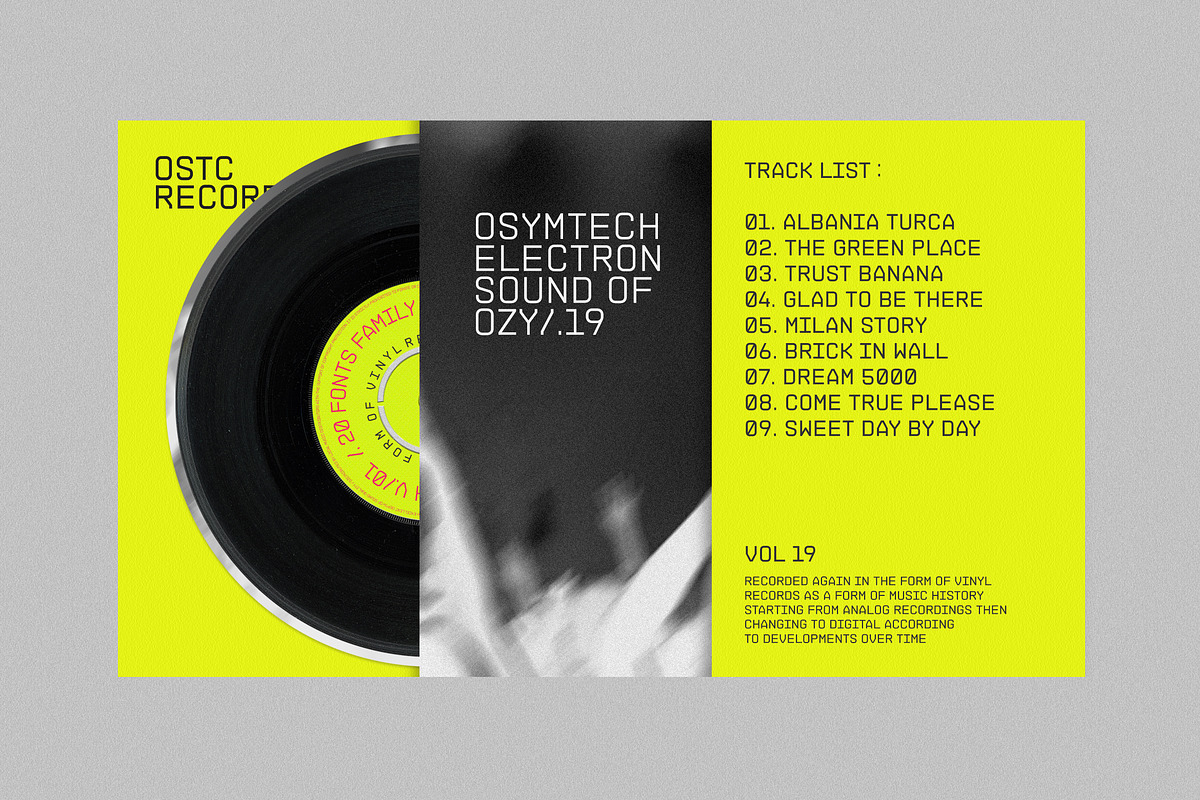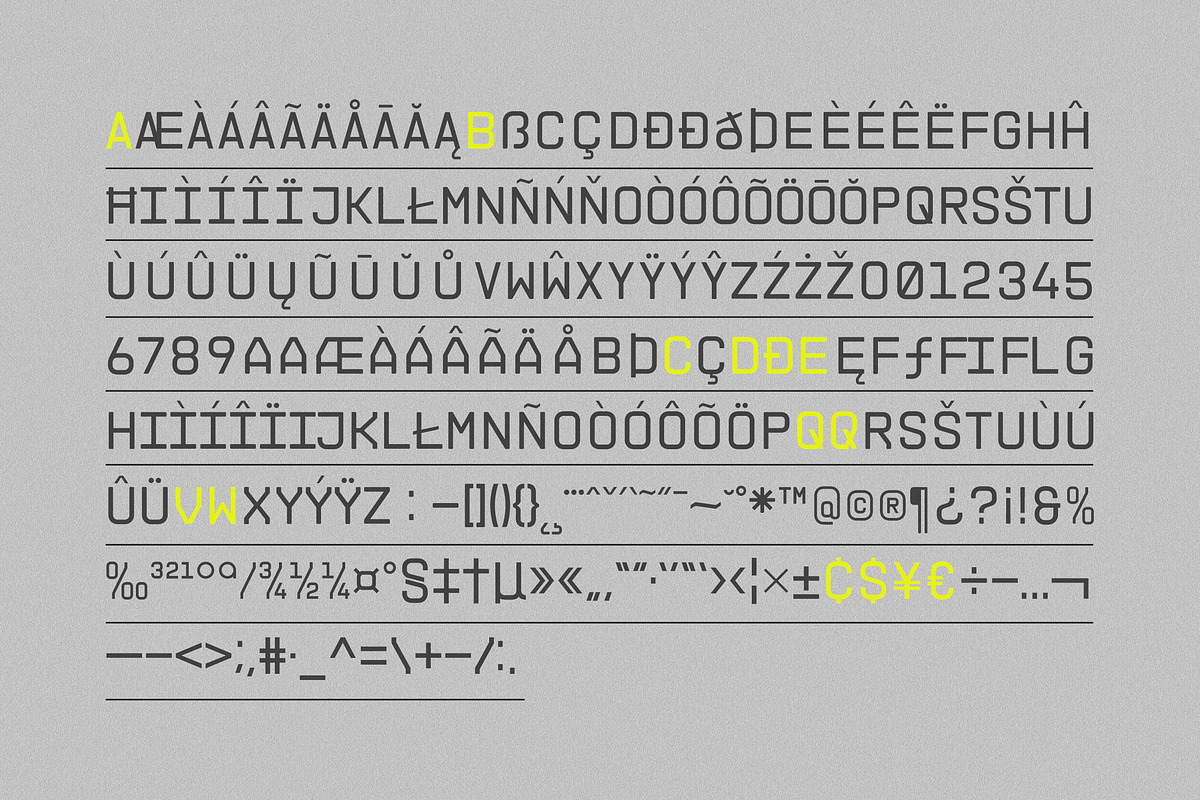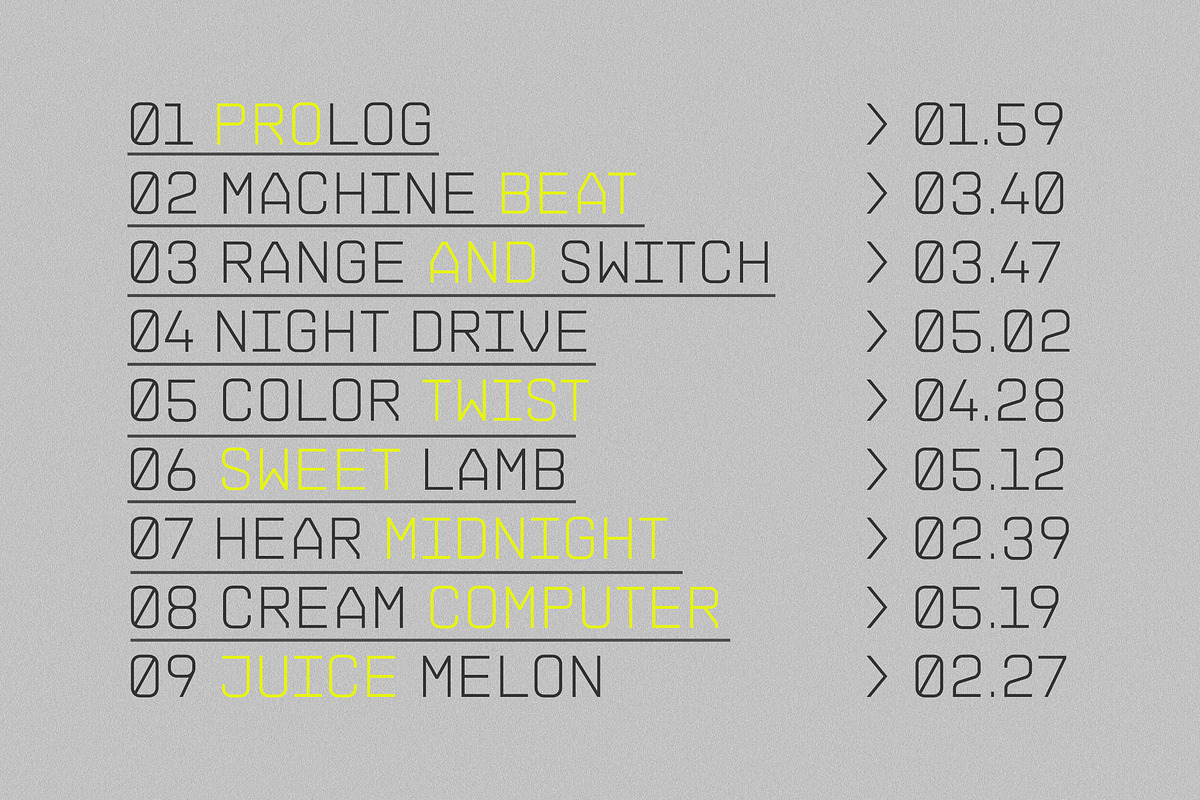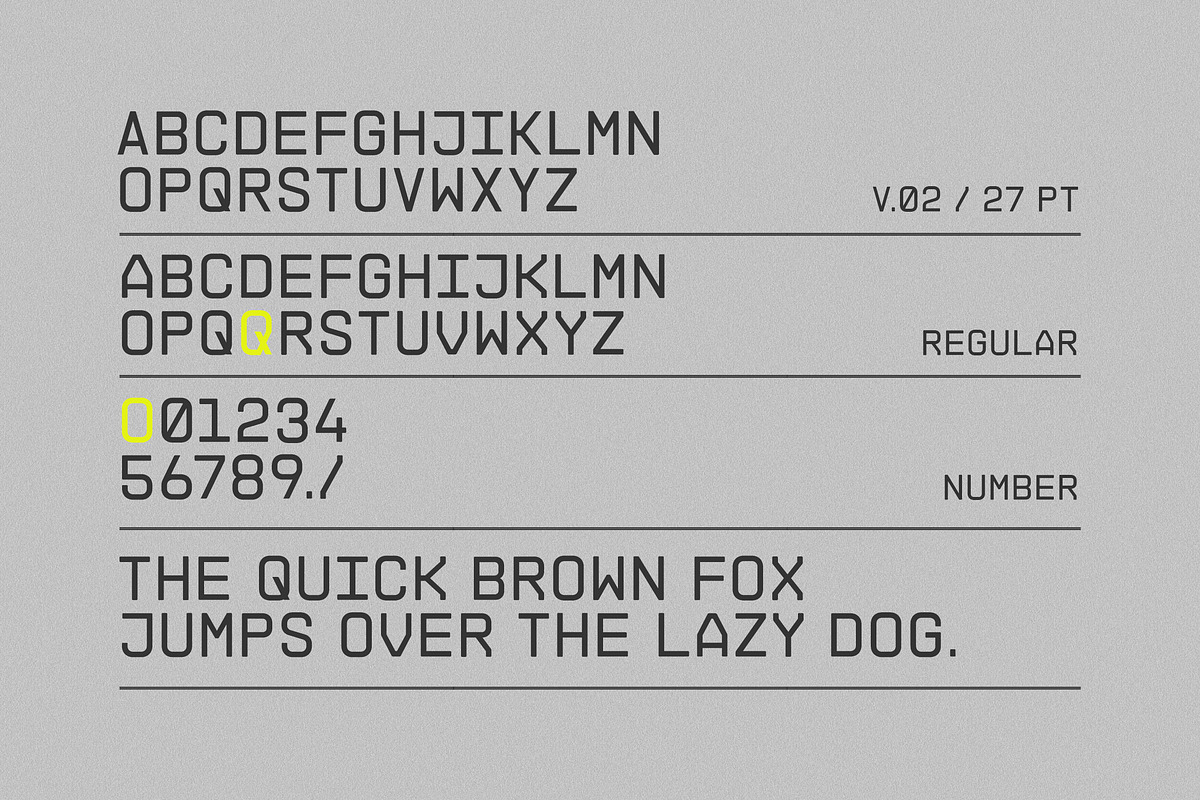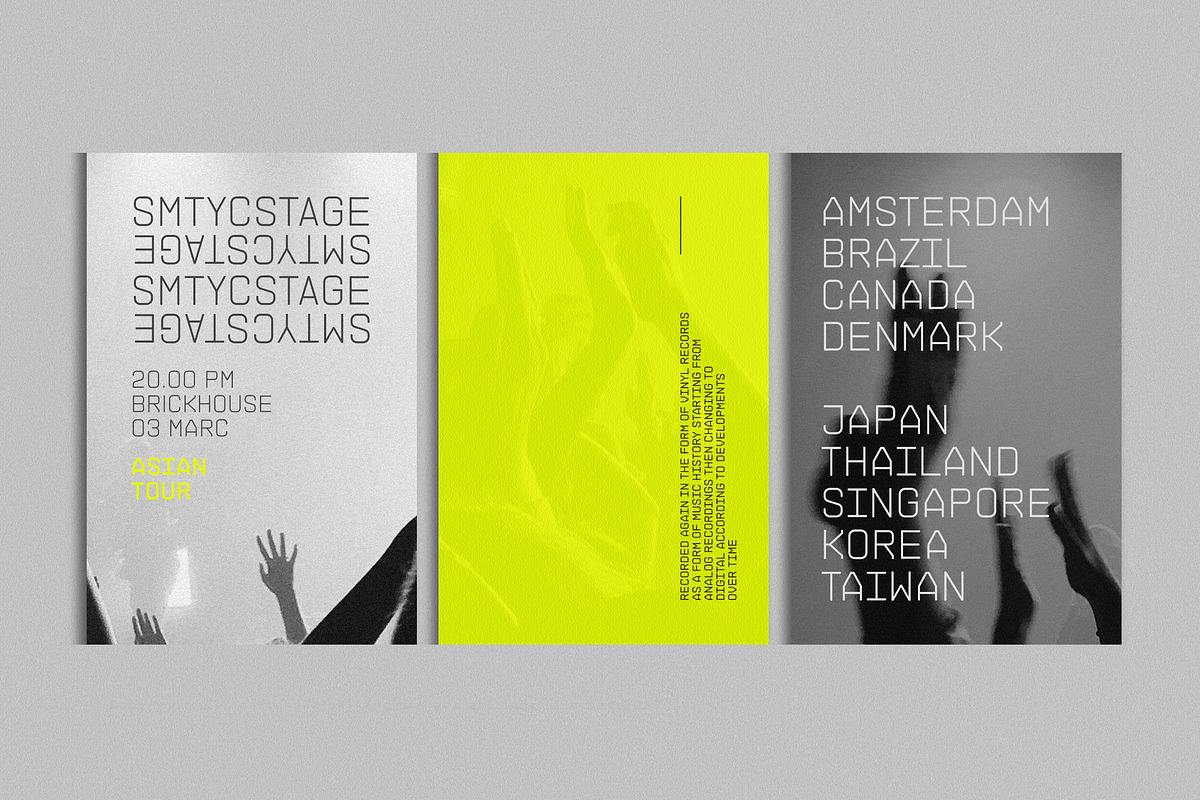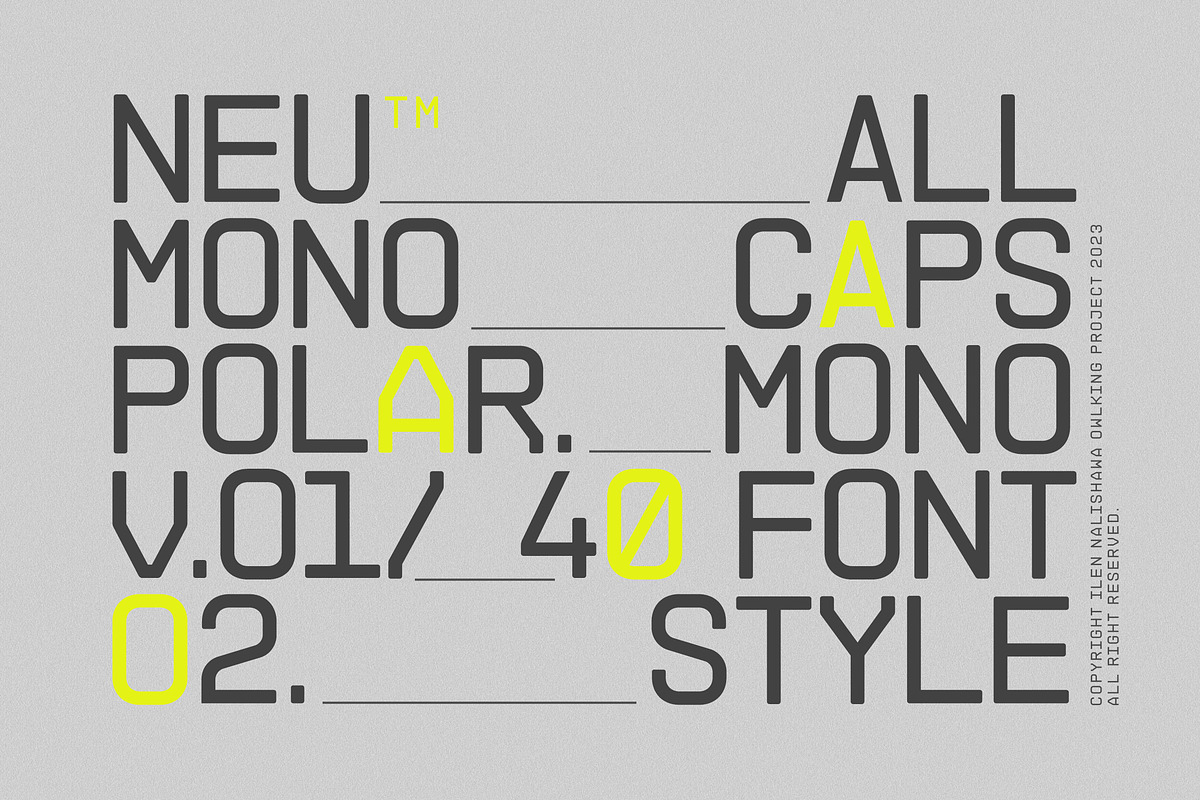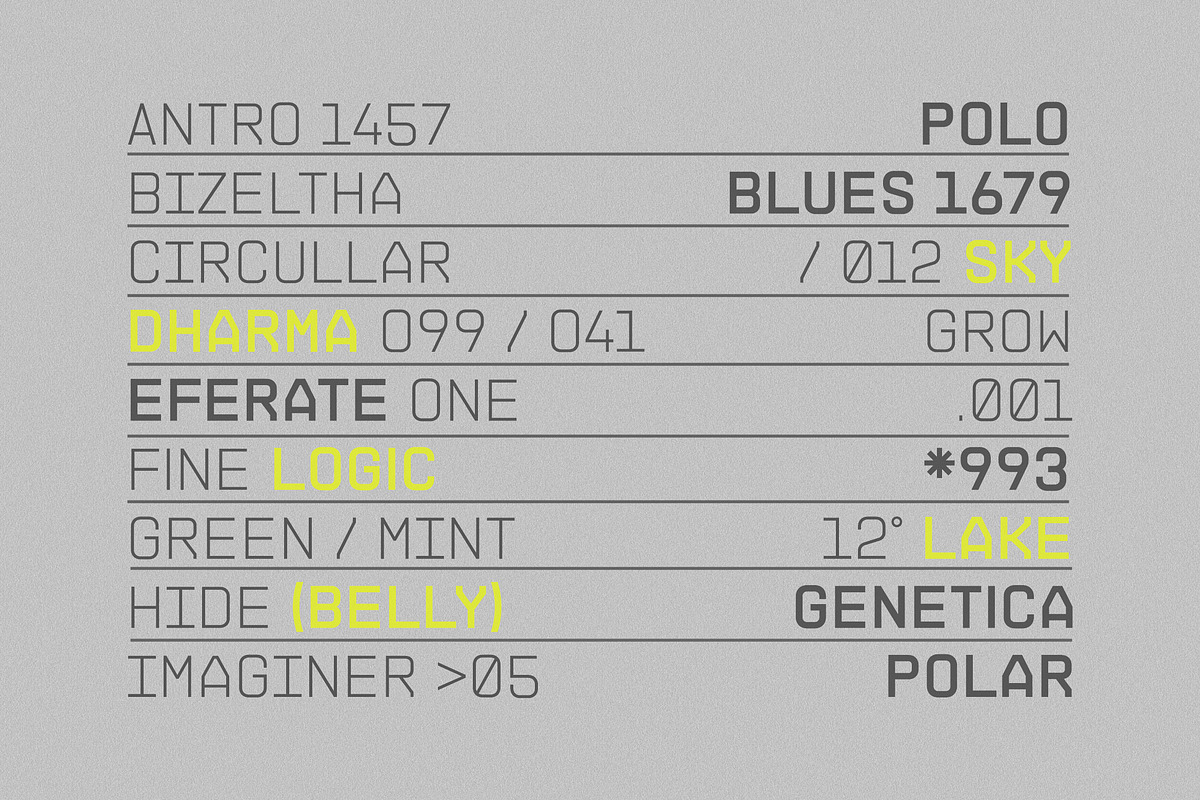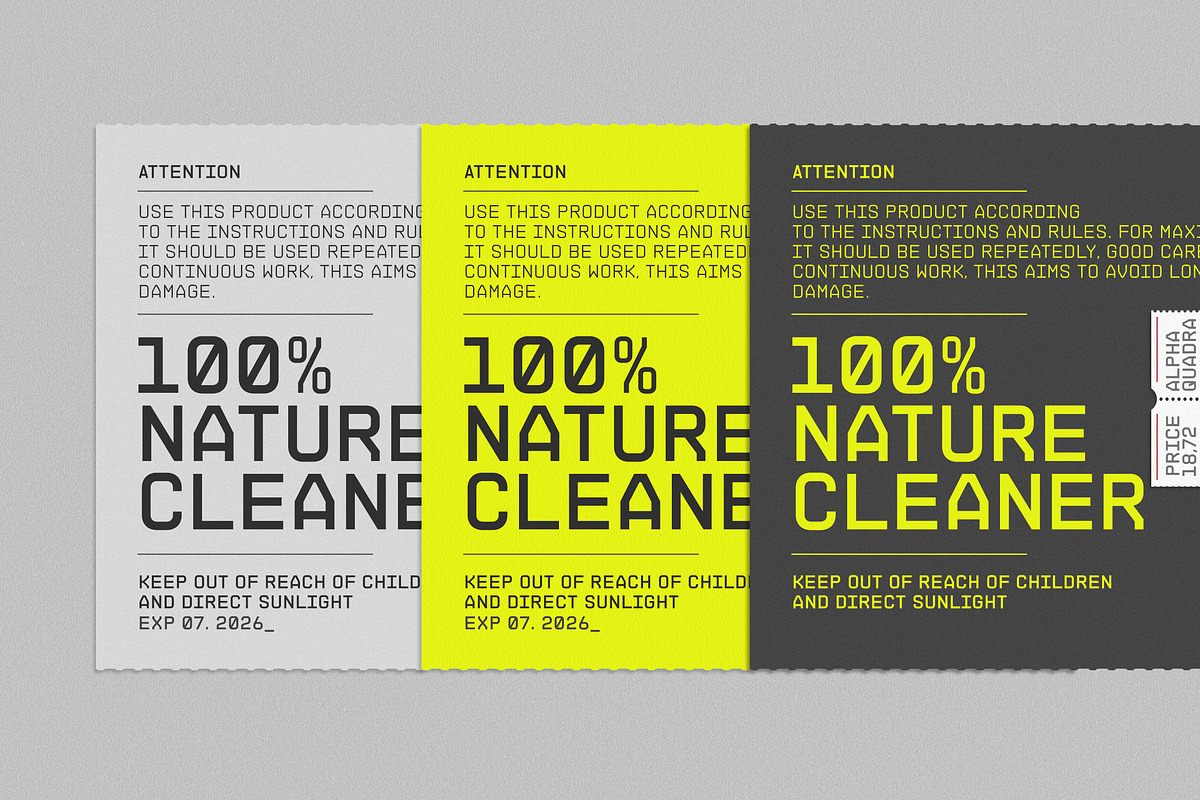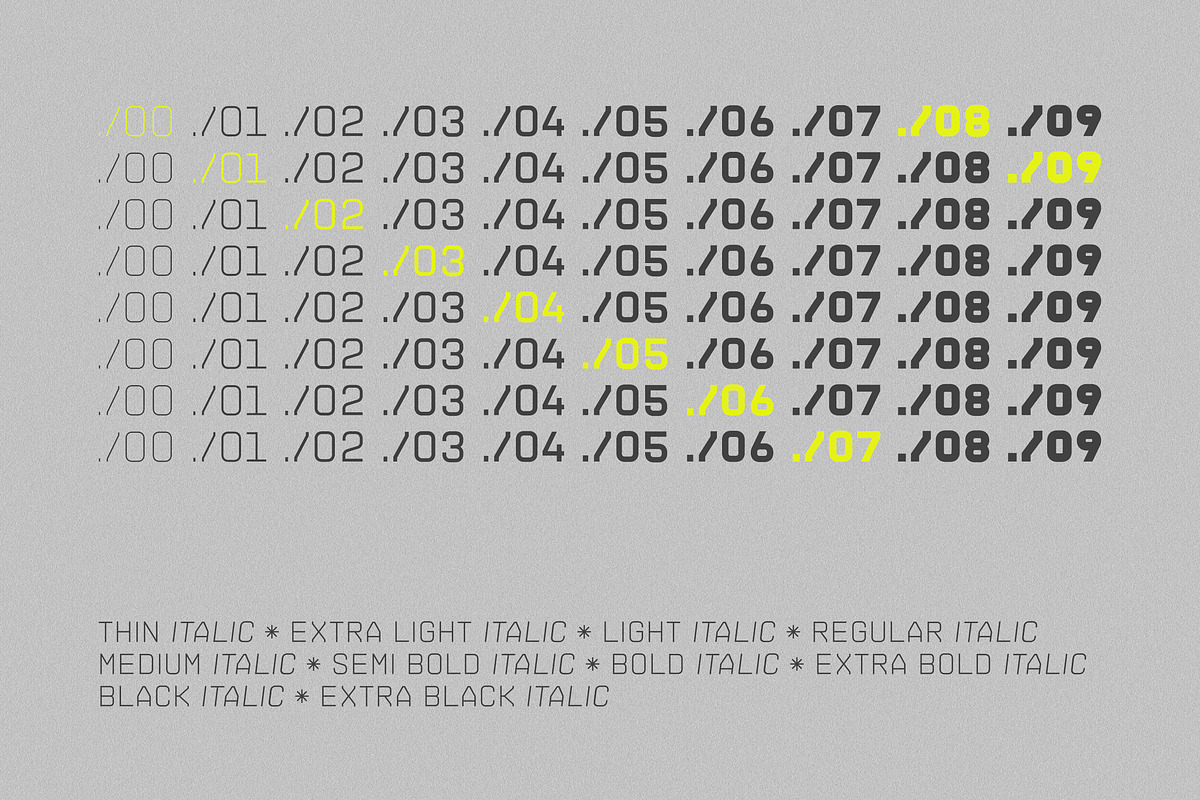
NEUMONOPOLAR
NEUMONOPOLAR V.01
NEUMONOPOLAR V.01 is designed with a mono uppercase font style, sharp edges, and bold. NEUMONOPOLARV.01 carries 20 styles to provide freedom of exploration in its use.
This font looks clean and elegant with a light to medium weight, emphasizing its use of bold style. welcome to the futuristic stylish front of the NEUMONOPOLAR V.01.
NEUMONOPOLAR V.02
There is a difference with the NEUMONOPOLAR V.01 version where the NEUMONOPOLAR V.02 is designed a little more smoothly, with perfectly curved edges, in this version the NEUMONOPOLAR V.02 looks more relaxed in shape and even more beautiful if rearranged in short paragraphs.
Still designed in a mono uppercase font style, with 20 styles including italics. NEUMONOPOLAR V.02, in addition to text headers, also works well for body text. Hopefully Version 02 further complements the style choices in Version 01 and provides a wider exploration of fonts with a futuristic style.